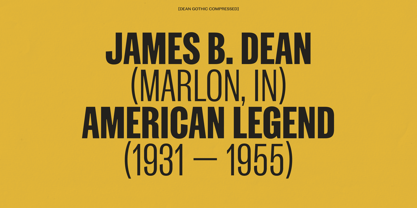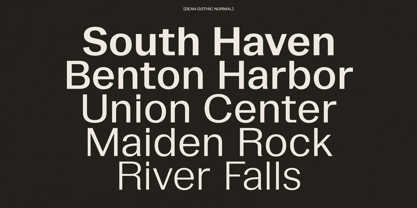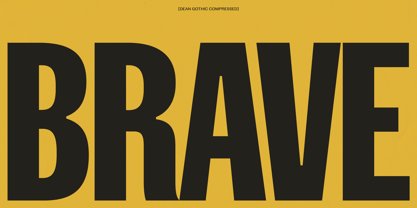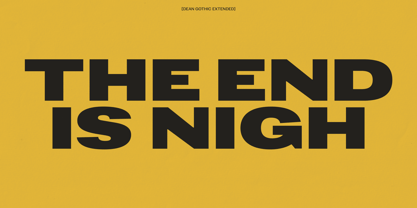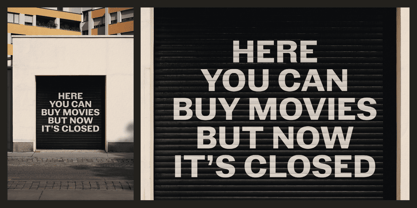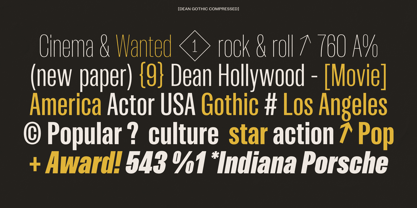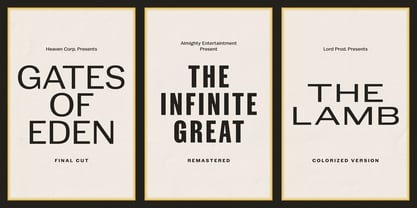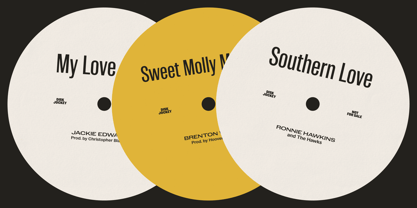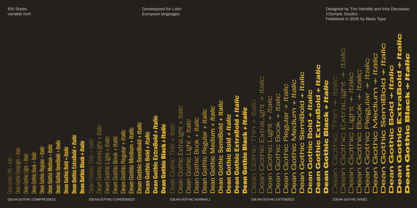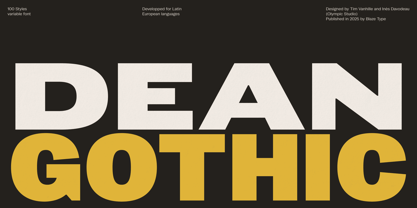
Dean Gothic
La familia tipográfica Dean Gothic fue diseñada por Tim Vanhille, Ines Davodeau y publicada por Blaze Type. Dean Gothic contiene 100 estilos y opciones de paquete familiar.
The Dean family is a vibrant tribute to the musical and cinematic culture of mid 20th century America. These typefaces, rooted in the legacy of wood types and period posters, reflect an era of intense creativity when design served as the voice of a culture in full swing. With its two subfamilies, Slab and Gothic, and a total of 200 styles, Dean is far more than just a typeface, it’s a creative tool that transcends time and usage, paying homage to the energy and freedom of a pivotal moment in American cultural history. With its sharp, precise forms, Dean Gothic retains historical subtleties while embodying a timeless and understated modernity. It continues the typographic tradition of combining functionality with strong aesthetics, echoing the rebellious and free-spirited soul of the cultural events of that time.
For a complementary design with a strong visual impact, explore Dean Slab, which encapsulates the robustness and authenticity of American wood types.